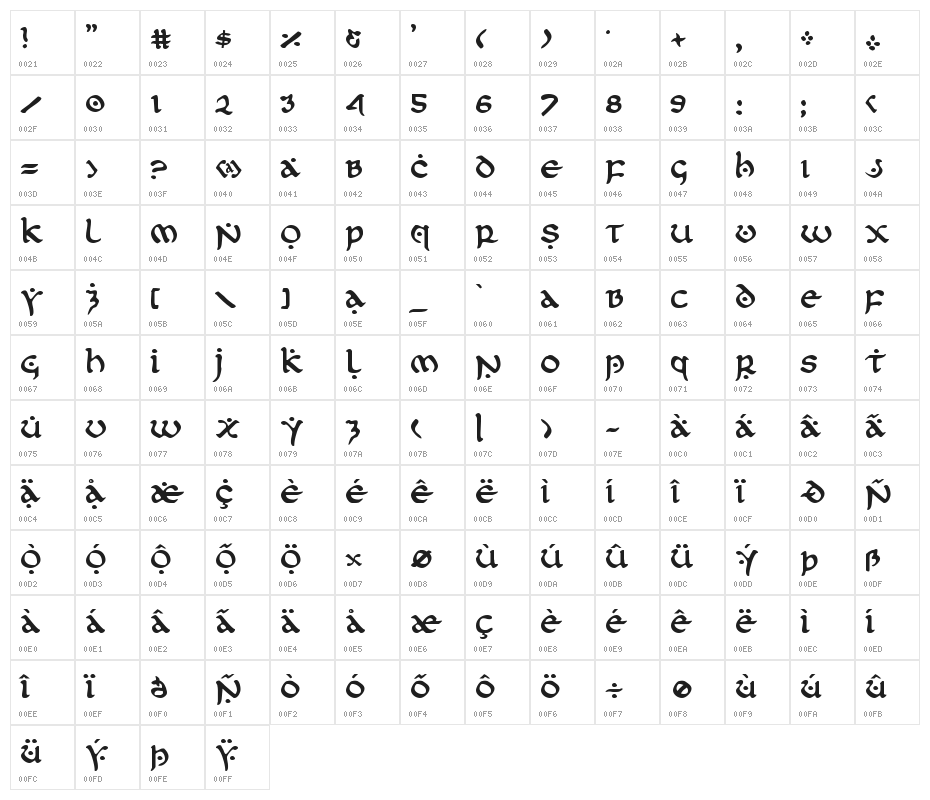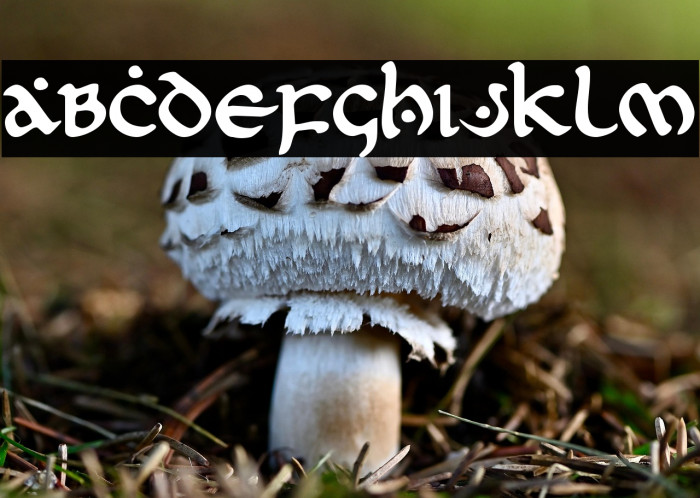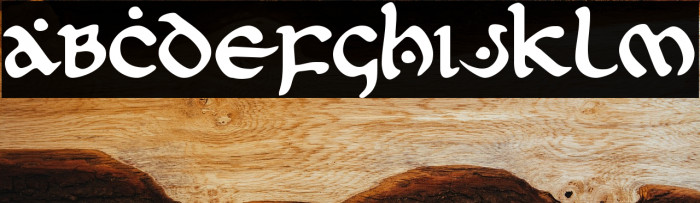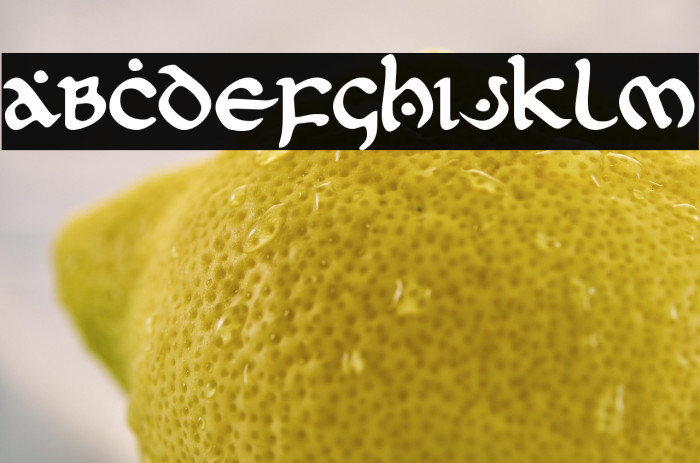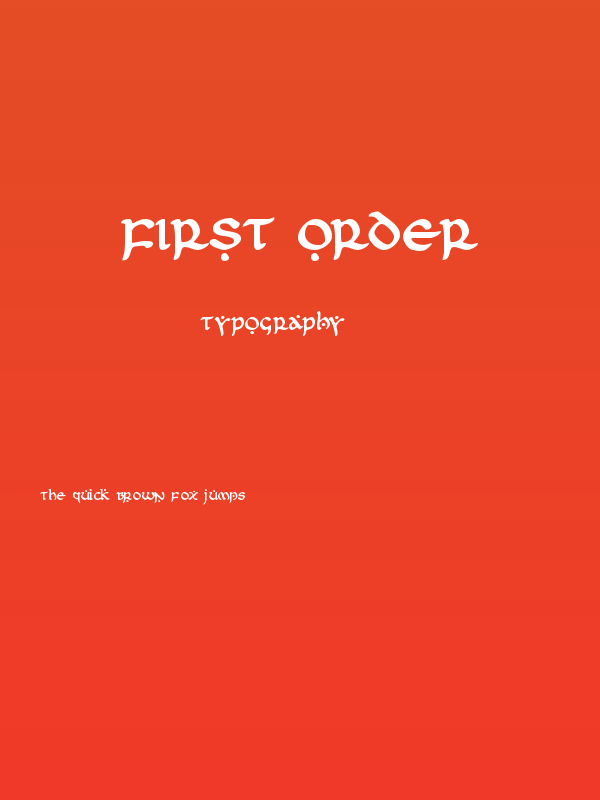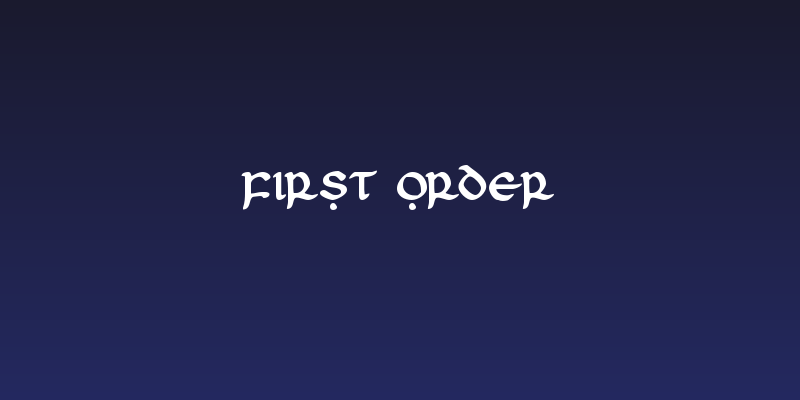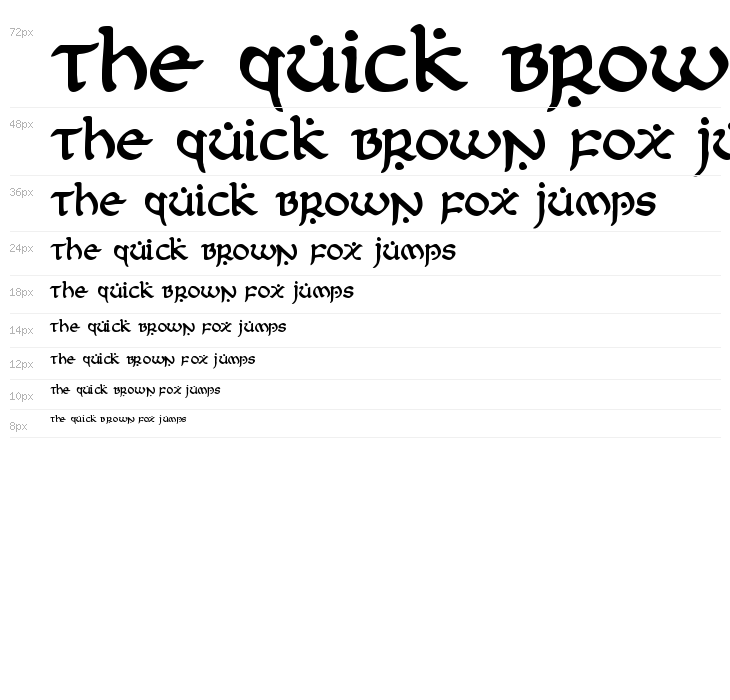
First Order Font
First Order Description
This font features a unique and artistic style reminiscent of ancient scripts or fantasy-themed designs. The characters are bold and have a decorative flair, with intricate curves and dots that add a mystical touch. The uppercase and lowercase letters maintain a consistent style, while the numbers and special characters are equally ornate. This font is ideal for projects that require a touch of fantasy or historical ambiance, such as book covers, game titles, or themed event invitations.
| Overall Style | Fantasy, Decorative |
| Use Case | Headlines, Logos, Decorative text |
| Proposed Projects | Ideal for fantasy book covers, game titles, themed event invitations, and historical designs. |